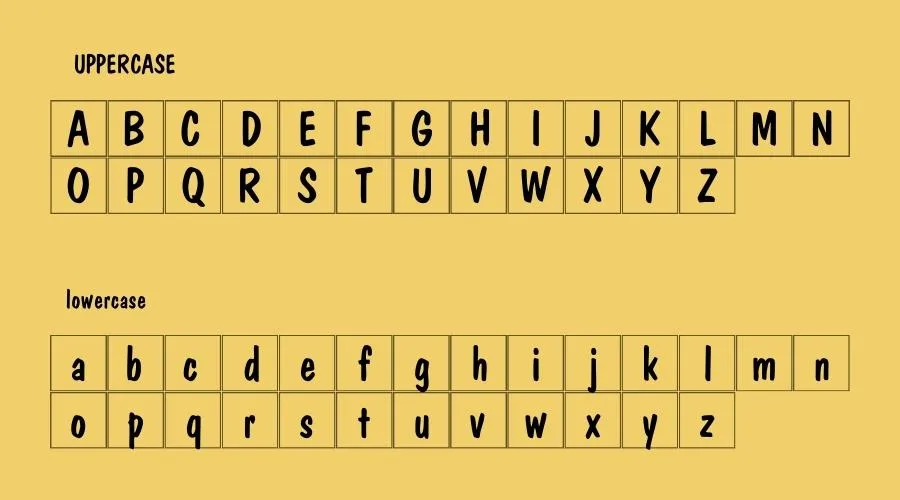
Jargon SSK Font
About Jargon SSK Font
The Jargon SSK Font belongs to the brush texture family and has a lovely appearance that makes it ideal for any presentation. This font was developed by a well-known graphic designer named Nana Nozaki. You may download it free with both file formats OTF and TTF.
It has amazing pairing quality and can easily be paired with serial killer font and make attractive projects. This font is an excellent choice for CSS and adobe photoshops.
This high-quality texture may be used for many things, including headers, banners, articles, quotations, and numerous other things. You can also utilize its online generator tool, in which you may change all your normal type of alphabet characters into stylish and trendy shops in a very short time.
The usage of Google Docs is recommended. This texture also works best in Canva and illustrators. Its cooler typeface family is appropriate for a variety of projects.
This stunning typeface has a distinctive and fashionable texture look appearance. So, that you may utilize this font for all modern and stylish purposes. It is the perfect choice for online and offline software such as canvas, Illustrator, adobe photoshops, CDN, and many more.
This elegant typeface may also be used for tiny branding, graphic designs, affiliation proofs, etc. Due to its clean layout and excellent symbols, this fantastic Font is ideal for building any sort of design without being concerned too much.
You may use this typeface with tiki hut font and create stunning projects. It was chosen by many well-known designers to generate stylish designs. When users try something new, you’ll adore it. For all of your creative tasks, this elegant style is unquestionably the finest option.
Where may Jargon SSK Font be used?
Many different things, like marvel comic titles, banners, paintings, and other things, employ this elegant font family.
Is Jargon SSK a font from Adobe?
The best style with a slight touch of screenplay font is this one. This well-known typeface may also be found on the Adobe Fonts website.